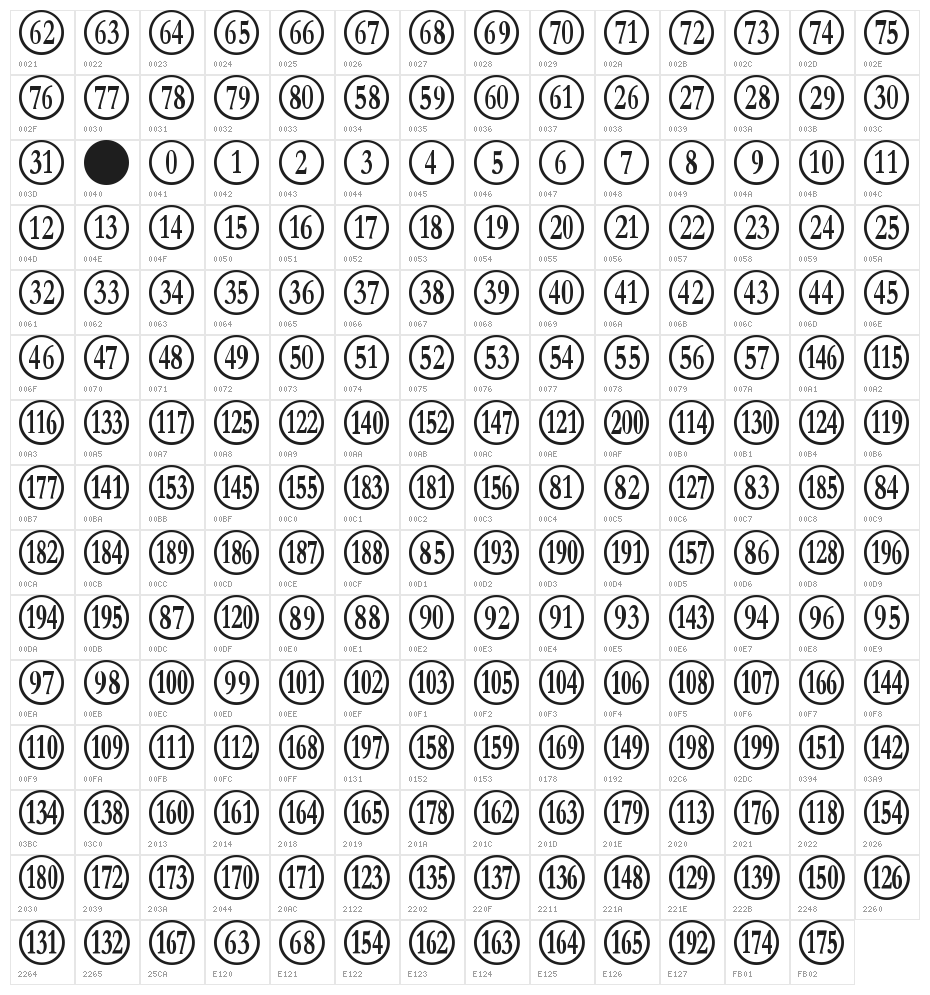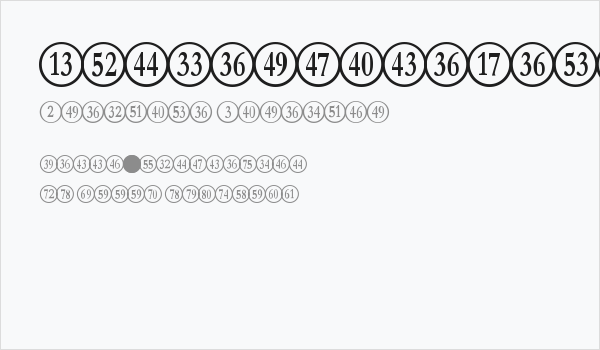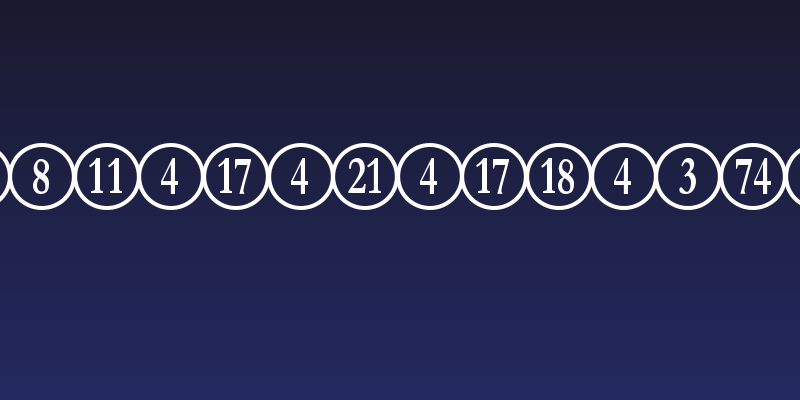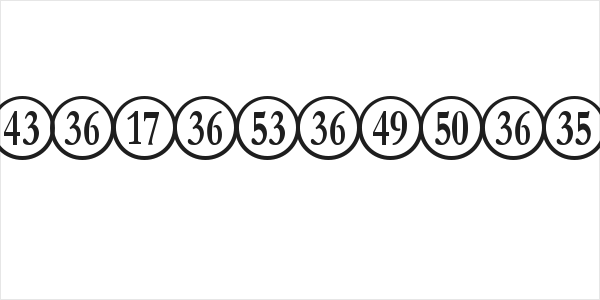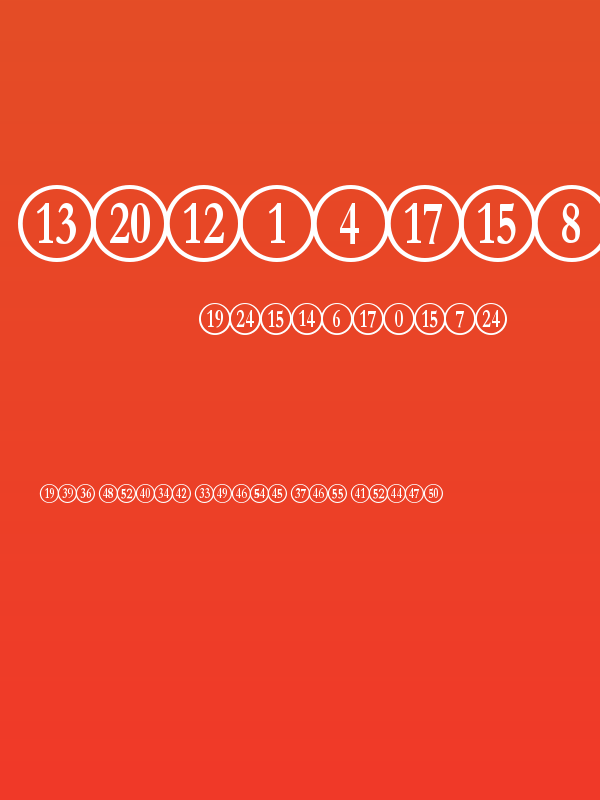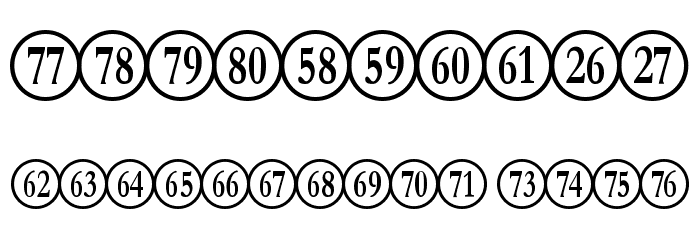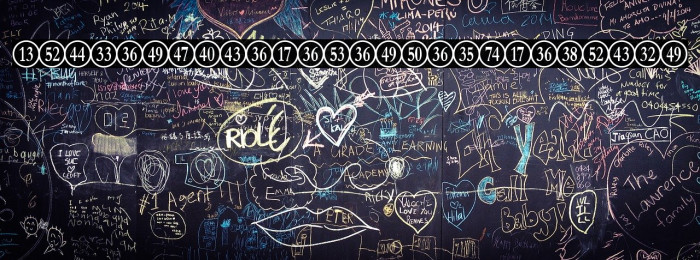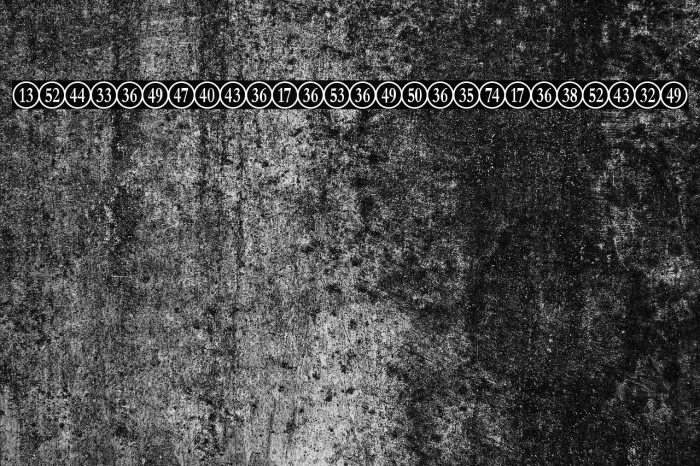
NumberpileReversed-Regular Font
| مشاريع مقترحة | Ideal for educational materials, playful graphic designs, children's books, or any project requiring a modern and engaging numeric display. |